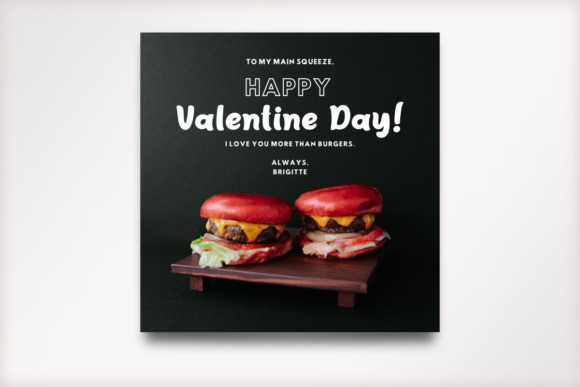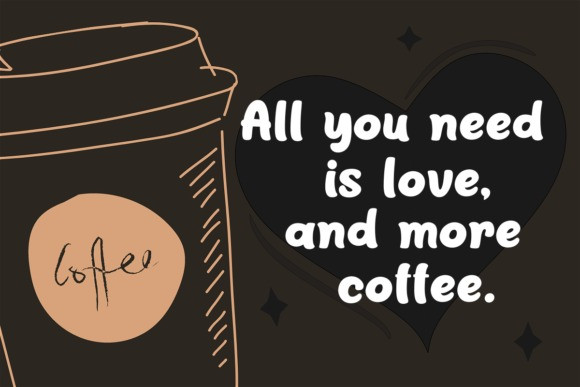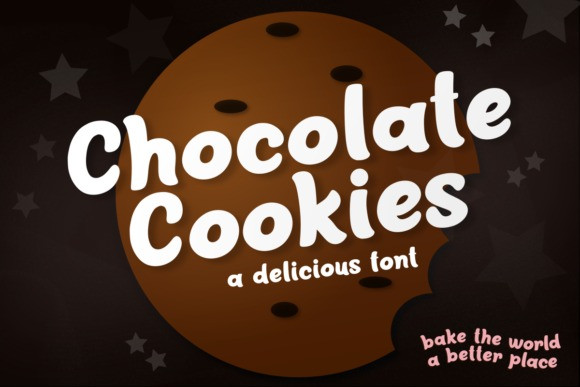
Chocolate Cookies Display Font
Chocolate Cookies is a sweet, tasteful and thick lettered display font. Whether you’re using it for crafting, digital designing, presentations or greeting cards making, it’s perfect!